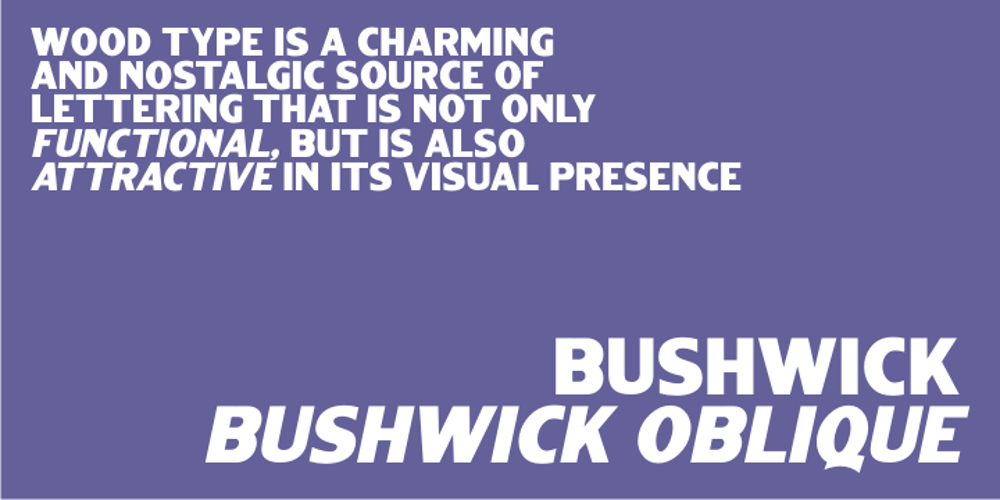
Bushwick JNL Font Family was designed by Jeff Levine and published by Jeff Levine. Bushwick JNL contains 2 styles and family package options. Bushwick JNL and Bushwick Oblique JNL are modeled from a wood type sanserif that has a strong resemblance to Franklin Gothic, yet keeps its own distinct personality.